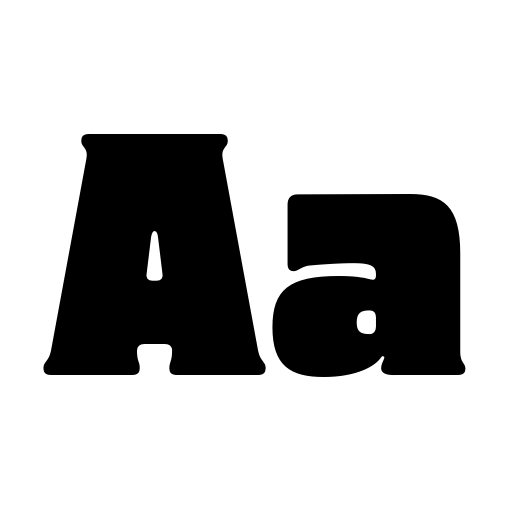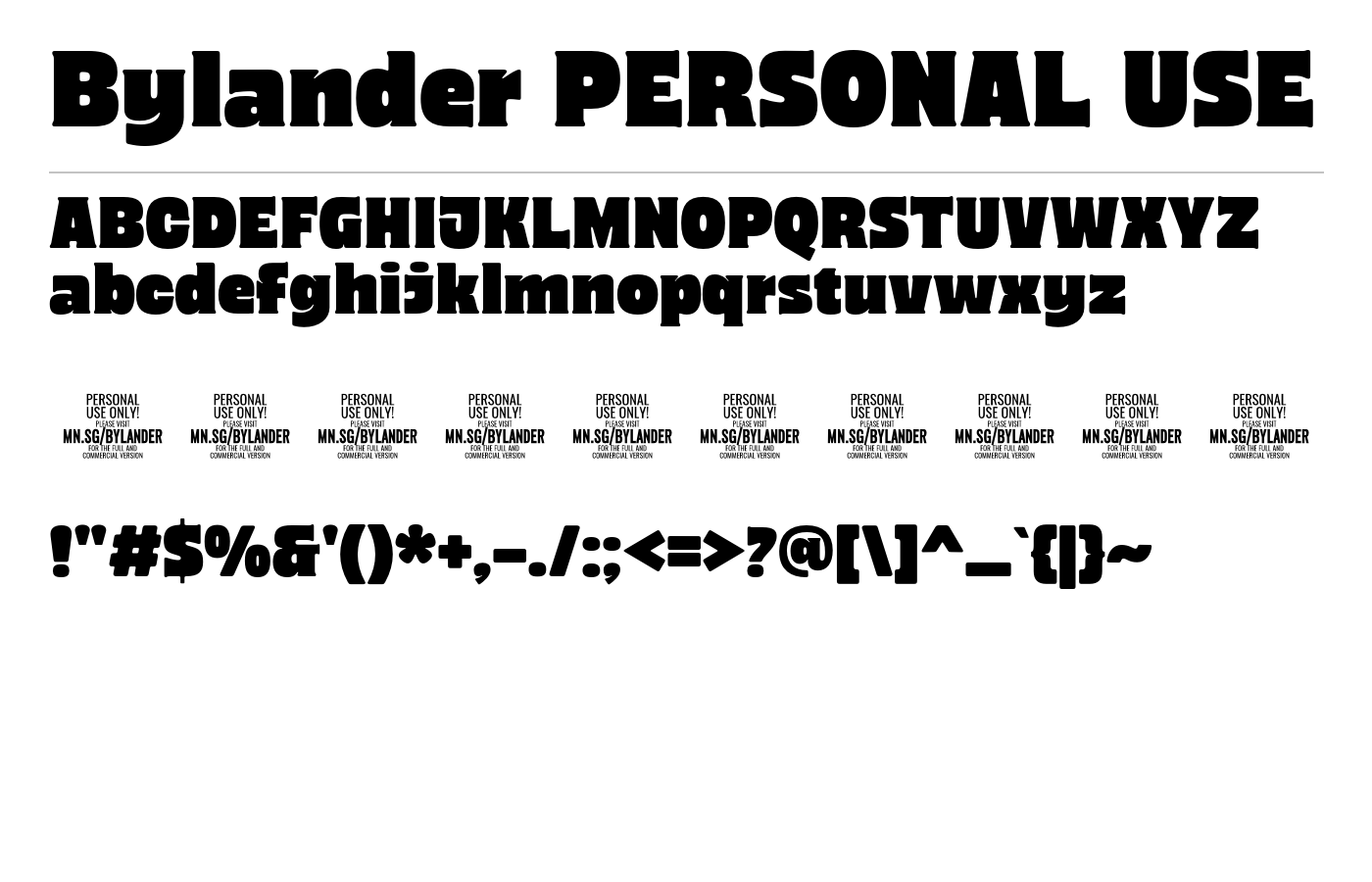
Bylander PERSONAL USE is a bold, condensed slab serif font with a strong presence and a playful yet solid character. Its heavy weight and sturdy block-like serifs give it a vintage, impactful feel, making it ideal for attention-grabbing headlines, posters, and branding that needs a confident, retro-inspired style. This font works best where a bold statement is needed, combining readability with a distinctive personality.
Bylander PERSONAL USE Font
About Bylander PERSONAL USE Font